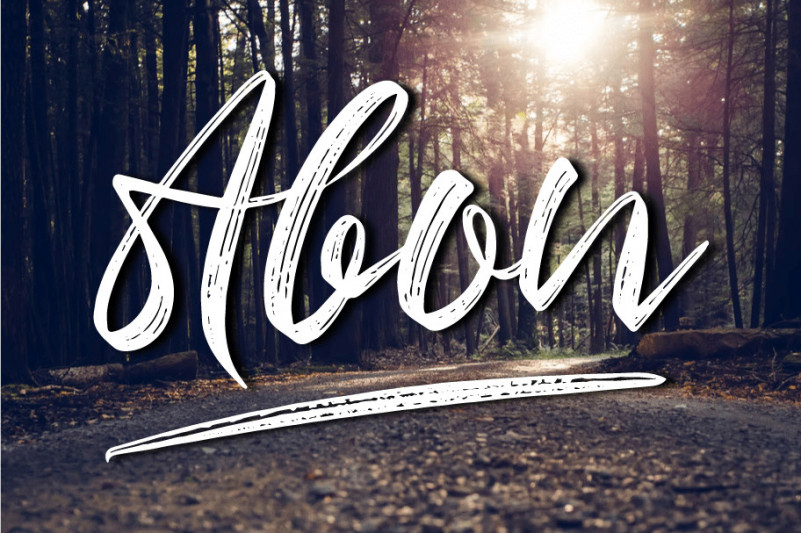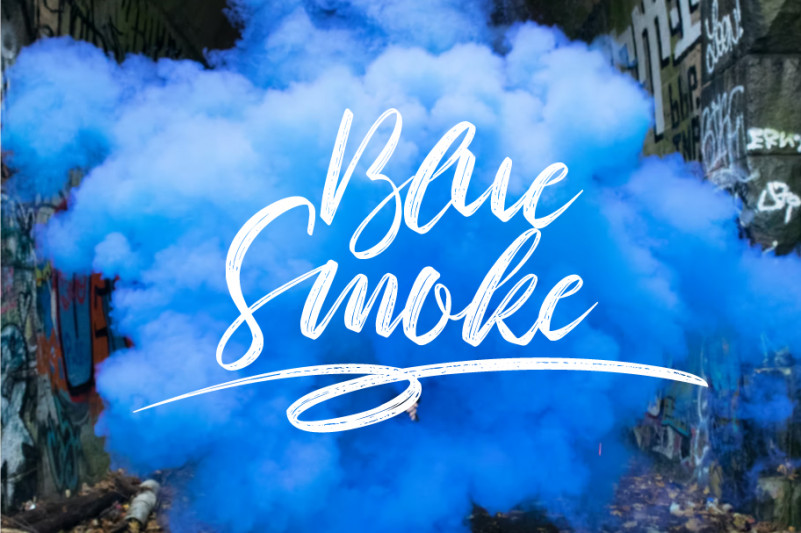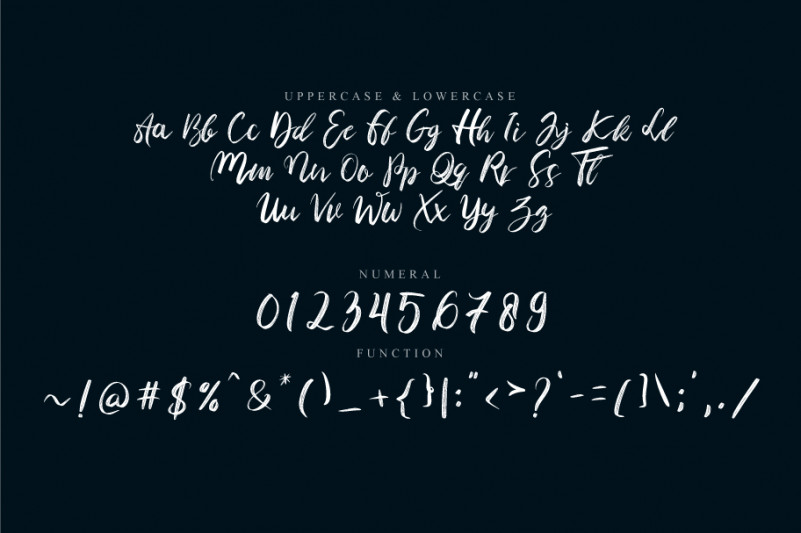
Abon Font
Abon is a lovely brushed handwritten font. It looks stunning on wedding invitations, thank you cards, quotes, greeting cards, logos, business cards and every other design which needs a customized touch.